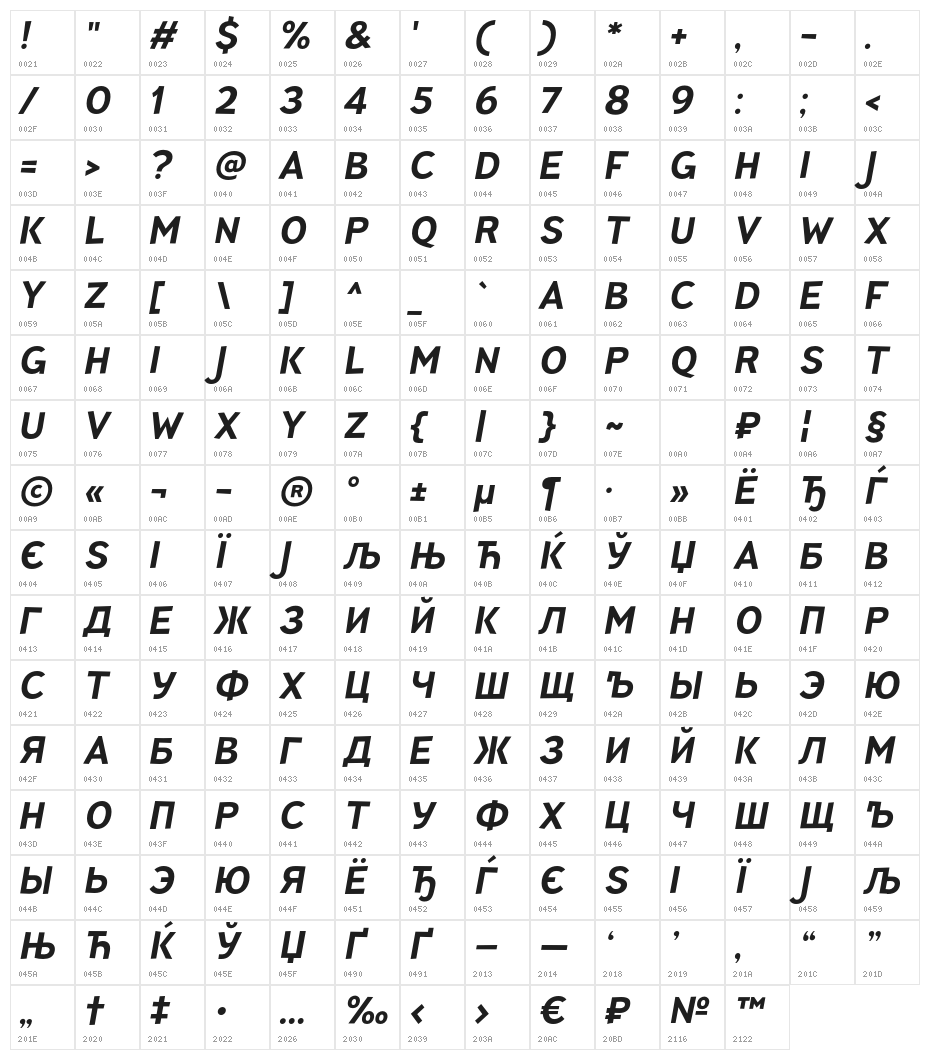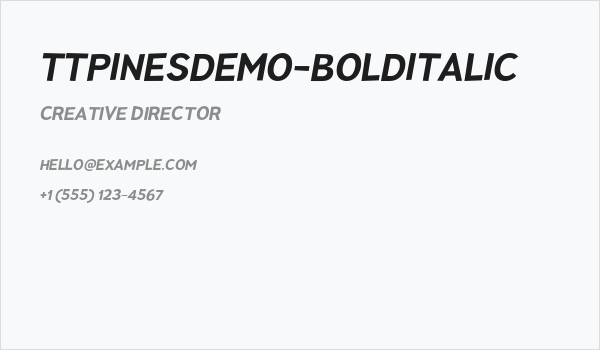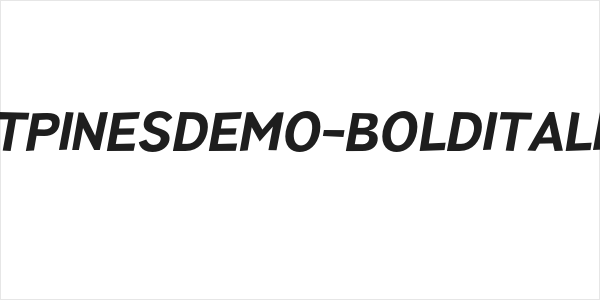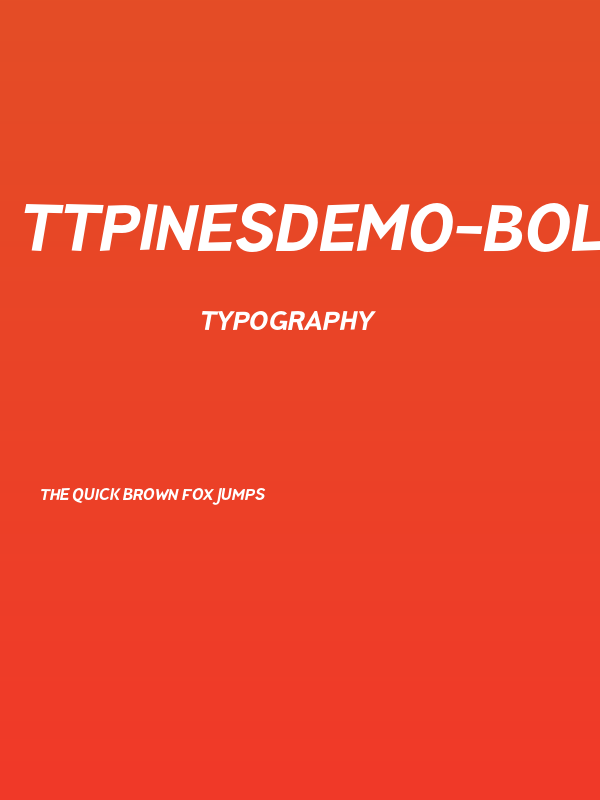
TTPinesDEMO-BoldItalic Font
TTPinesDEMO-BoldItalic Description
This font features a bold and italicized style, characterized by its strong and dynamic presence. The letters are slightly slanted, giving a sense of movement and energy. The strokes are thick and consistent, providing a robust appearance. The font maintains a clean and modern aesthetic, with smooth curves and sharp edges that enhance its readability. The numerals and special characters are designed to match the boldness of the letters, ensuring a cohesive look across all characters. This font is well-suited for projects that require a bold statement, combining both elegance and strength.
| Use Case | Headlines, Logos, Advertising |
| Proposed Projects | Ideal for branding, advertising, headlines, and any design requiring a strong visual impact. |